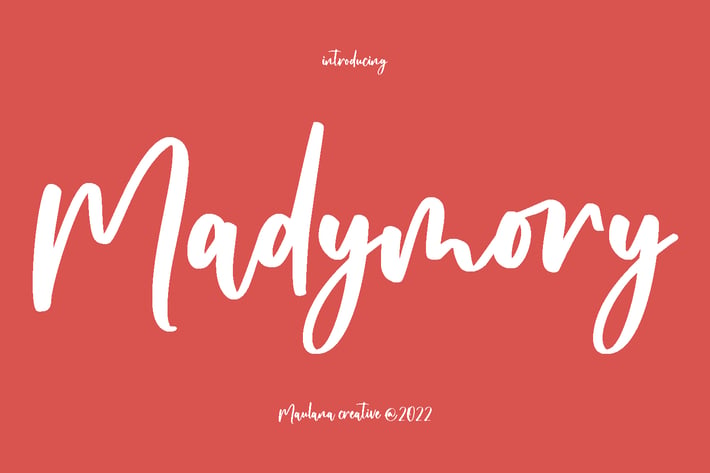
Madymory Handwritten Script Font
Madymory is a beautiful modern handwritten script font. With rough stroke, fun character with a bit of ligatures and alternates. To give you an extra creative work. Madymory font support multilingual more than 100+ language. This font is good for logo design, Social media, Movie Titles, Books Titles, a short text even a long text letter and good for your secondary text font with sans or serif. Make a stunning work with Madymory font.